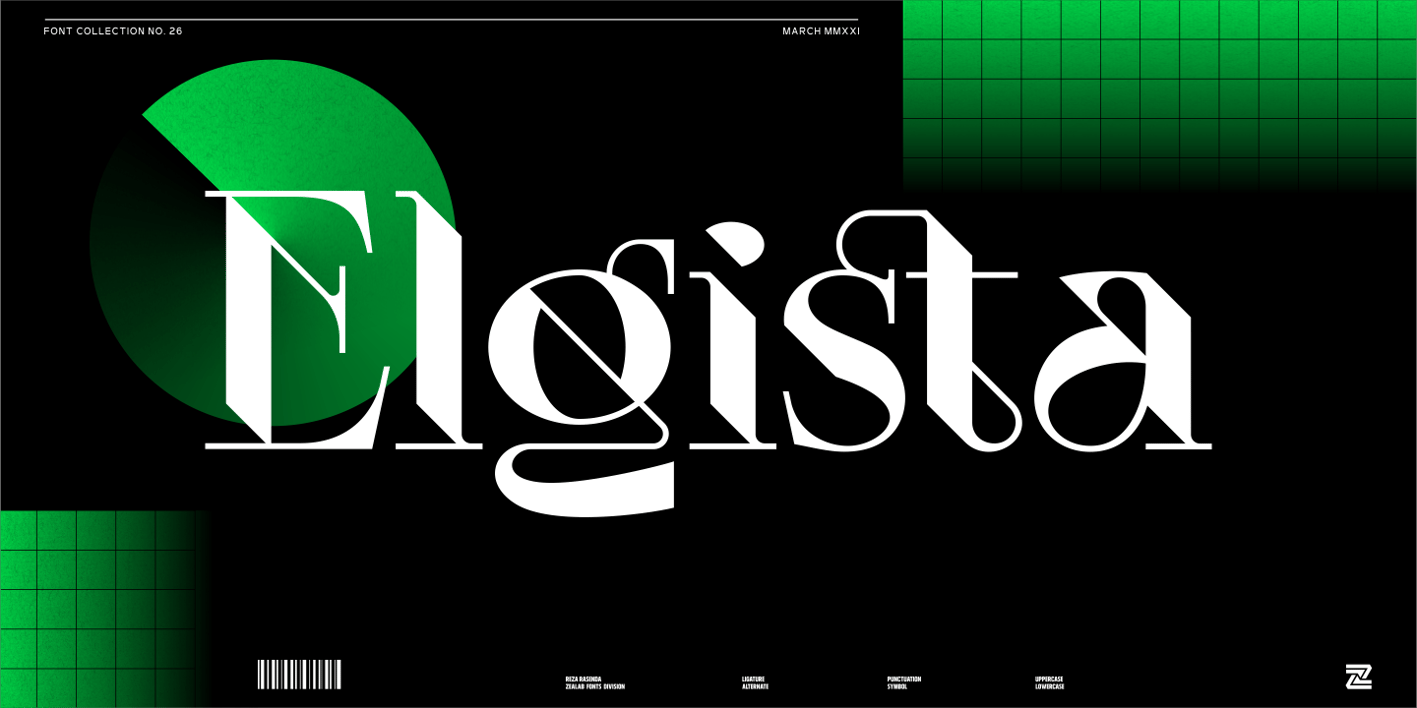
Elgista Font
Please note that Elgista Font must be purchased for commercial use. You are welcome to download and test this font for personal and non-commercial projects at no cost. This avant-garde, modern serif display typeface is perfect for a highly conceptual and impactful range of design applications, including experimental magazine layouts, brutalist-inspired website headers, sophisticated fashion branding, dynamic event posters, bold packaging design, and any creative project that demands a high-contrast, edgy, and unforgettable typographic statement.
The reason Elgista Font is genuinely exciting is its successful and daring combination of classic serif elegance with experimental, brutalist design choices. It features extremely high contrast strokes and an unconventional structure that pushes typographic boundaries, creating a sense of sophisticated tension and raw energy. This deliberate combination ensures the font is instantly modern and highly magnetic, making it a powerful tool for branding that wants to stand out from conventional aesthetics and embrace a forward-thinking, artistic edge.
The Elgista Font family, in its typical release, concentrates its entire focus into a single, highly detailed Display Serif style. This singular style is packed with OpenType features, including stylistic alternates and ligatures, which allow designers to inject custom flair and personality into the text. Furthermore, it often supports an extensive range of multilingual languages, making its unique aesthetic accessible globally. For a strikingly modern and experimental typeface, secure your Elgista Font Free Download today.